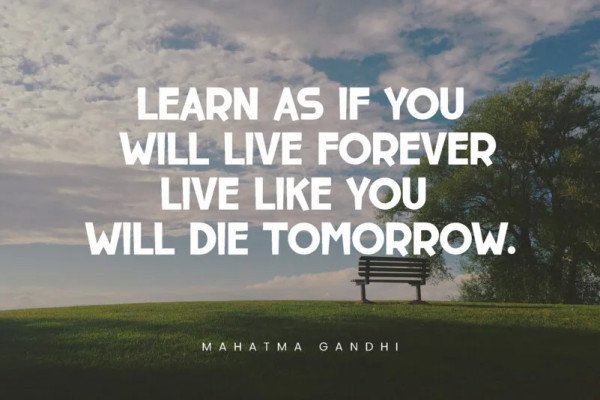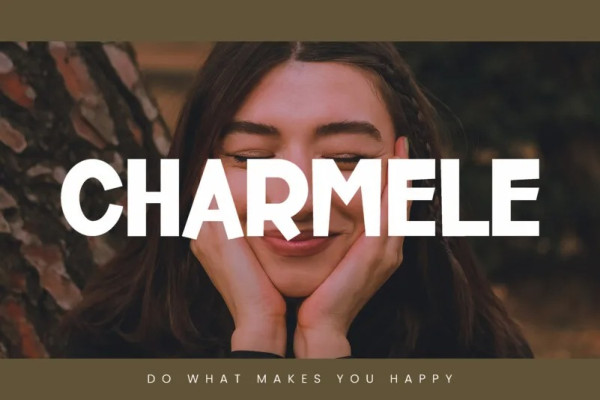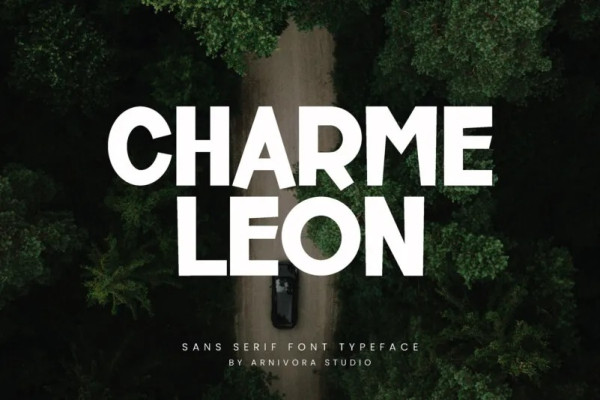
Charmeleon Font
Charmeleon Font, a simple and unique sans serif font. So perfect for you who needs a typeface for logo designs, magazine, social media, brochure, and many more.